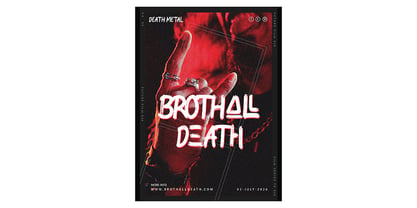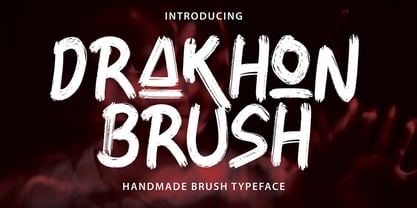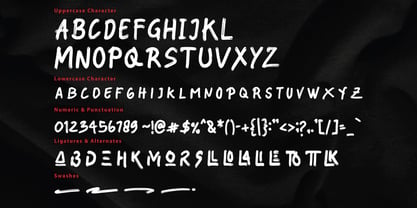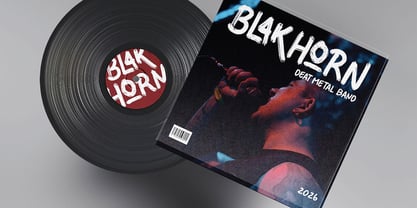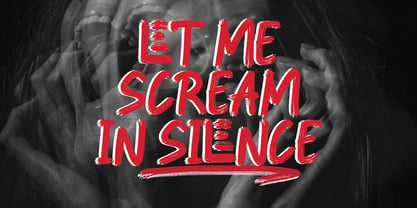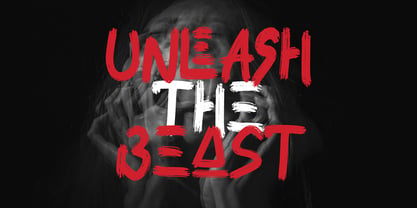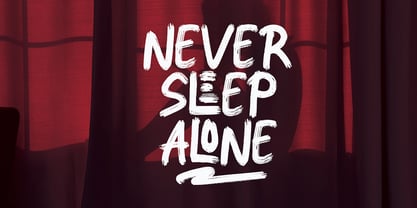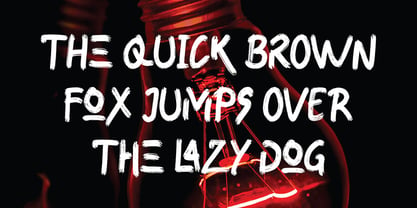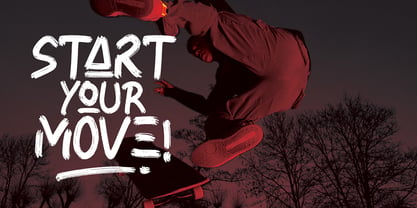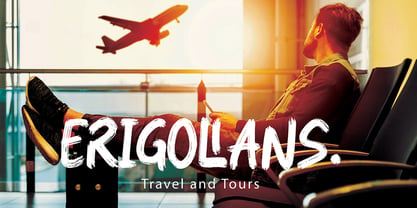
Drakhon Brush
The Drakhon Brush Font Family was designed by Ferdiansyah and published by Pointlab. Drakhon Brush contains 1 styles. More about this family
Drakhon Brush with a handmade Signature style, decorative characters and a dancing baseline! So beautiful on invitation like greeting cards, branding materials, business cards, quotes, posters, and more!!